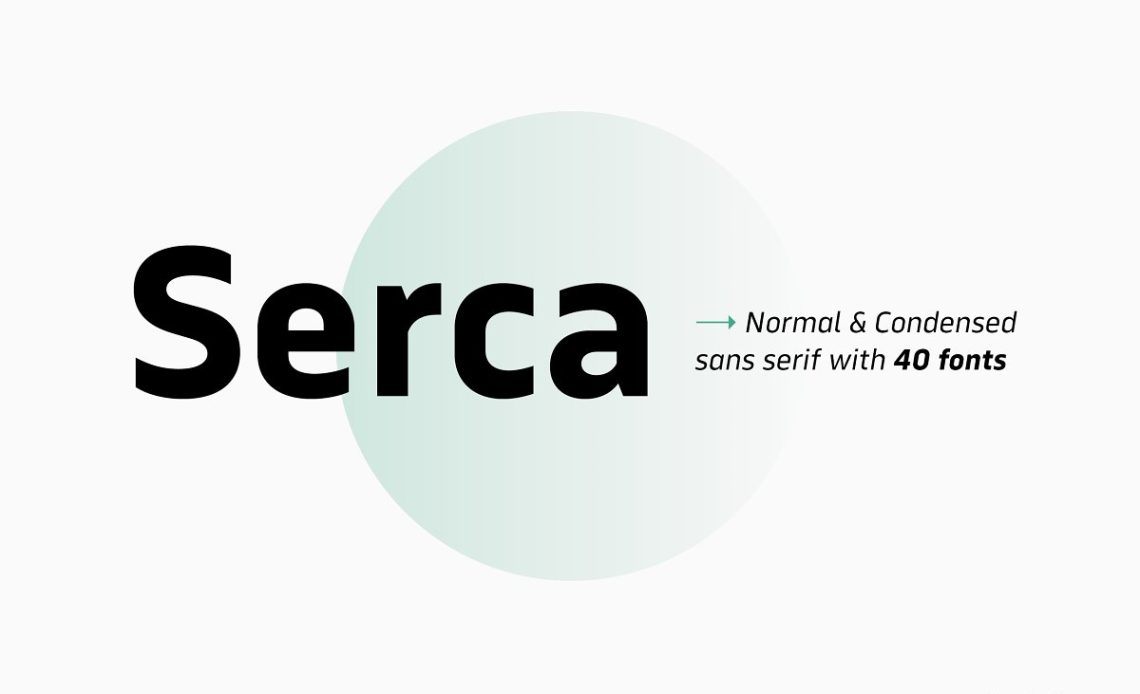
Introducing Serca Font Family - the Best Font For Open Captions! Created by the talented Adam Ladd, this font collection is a must-have for anyone looking to take their designs to the next level. And the best part? You can get all 40 fonts for an amazing price of just $39 during our INTRO SALE (regular price = $149)!
Serca is not your ordinary font family. It is a structured geometric sans serif font that combines professionalism and precision with an open and legible design. This makes it the perfect workhorse for a wide range of applications, including branding, advertising, websites, mobile apps, logos, magazines, and more. Whether you need it for small body text or eye-catching headlines, Serca has got you covered.
What sets Serca apart is its unique design characteristics. With vertical terminals, open apertures, a large x-height, and angled stems where curves join, this font family exudes modernity and cleanliness. But that's not all - Serca also offers a wide range of weights, from Thin to Black with italics, giving you endless possibilities to play with. Plus, it includes a Text weight for a slightly darker appearance than the Regular.
But it doesn't stop there. Serca comes packed with features that will make your designs stand out. With stylistic alternates, case-sensitive punctuation for All Caps, arrow icons and symbols, fractions, numerators, denominators, superscript, subscript, and tabular figures, you'll have all the tools you need to create stunning and captivating visuals.
And let's not forget about its extensive multilingual support. With over 600 glyphs, Serca supports the Latin language for Western, Central, and South Eastern European regions. So no matter where your audience is from, you can communicate your message effectively and effortlessly.